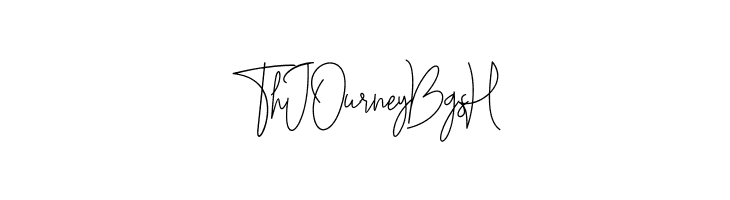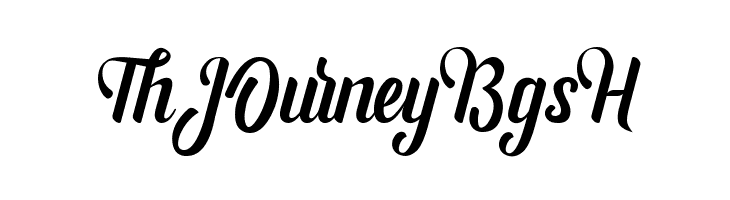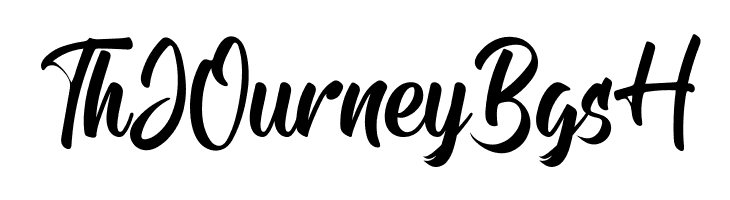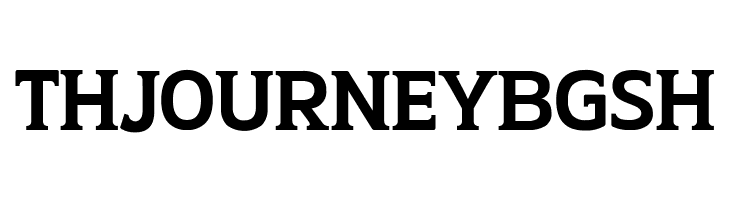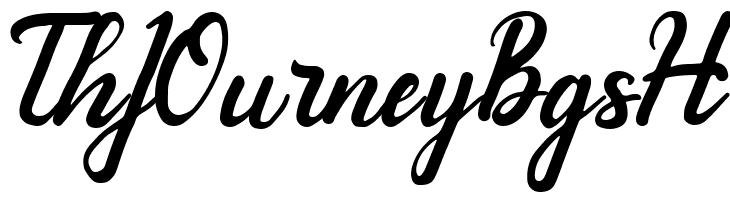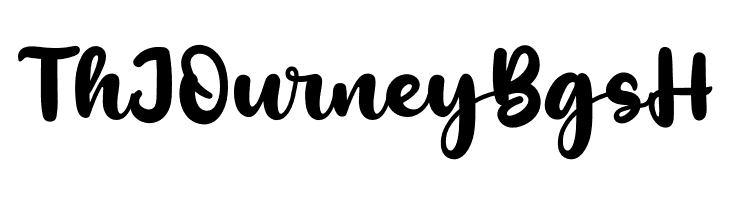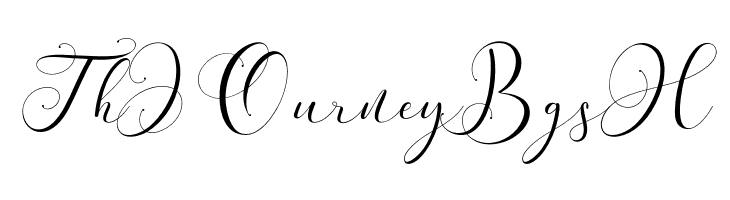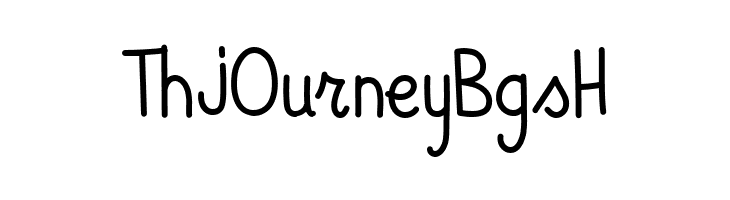
• Andesytes Personal
A bold, playful script font with smooth, flowing strokes and rounded edges.
• Andhibath Demo
A bold, dynamic script font with fluid strokes and a modern, artistic style.
• Andhyta
A dynamic and elegant script font with flowing curves and smooth transitions.
• Andhyta (demo)
A bold, cursive script font with elegant, flowing lines.
• ANDi
A playful handwritten font with rounded, slightly irregular letterforms.
• Andi Signature
A casual, elegant handwritten font with flowing, interconnected letterforms.
• AndienNidyaDemo-Script
A graceful script font with flowing, interconnected letters and delicate loops.
• Andieny
An elegant script font with flowing cursive letters and intricate swashes.
• ANDIGO
A bold, modern font with strong, thick strokes and slightly condensed letterforms.
• Andika New Basic
A clean, modern sans-serif font with excellent legibility.